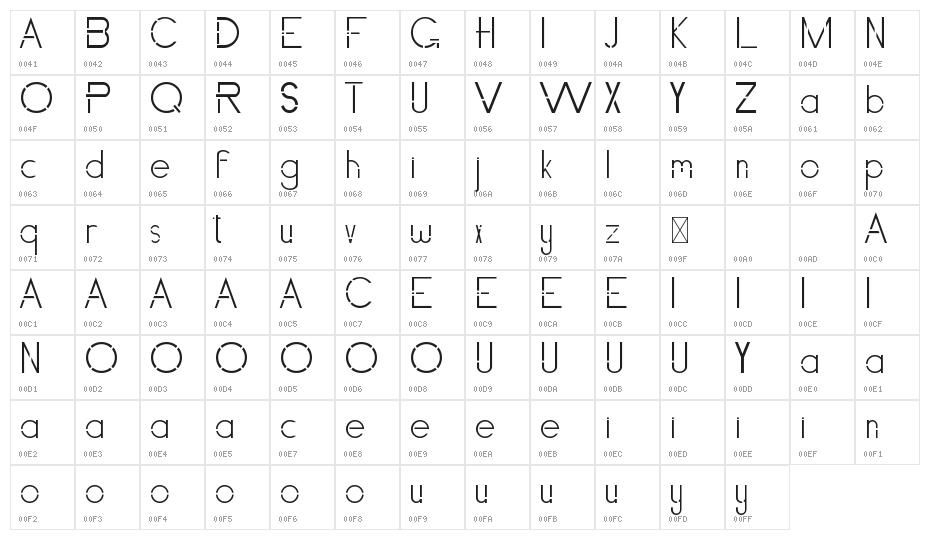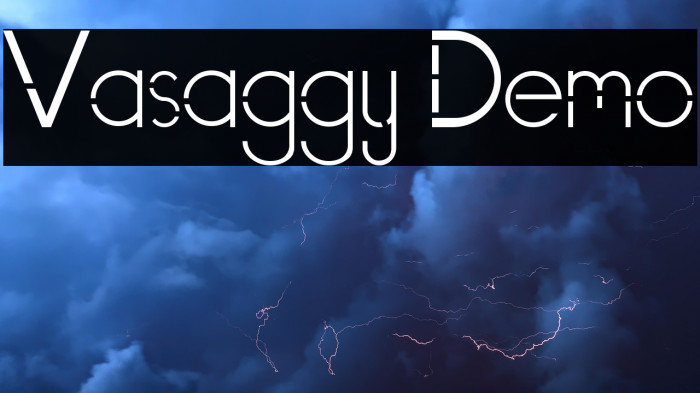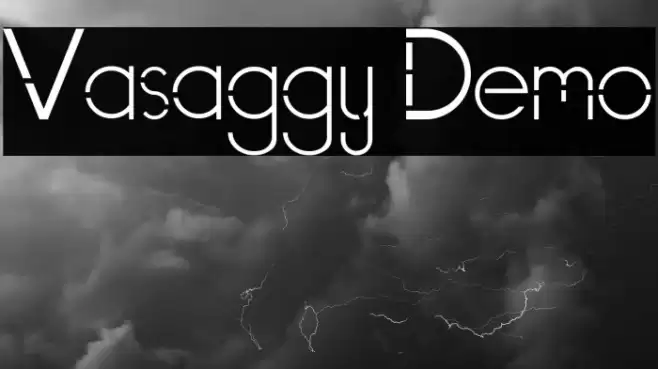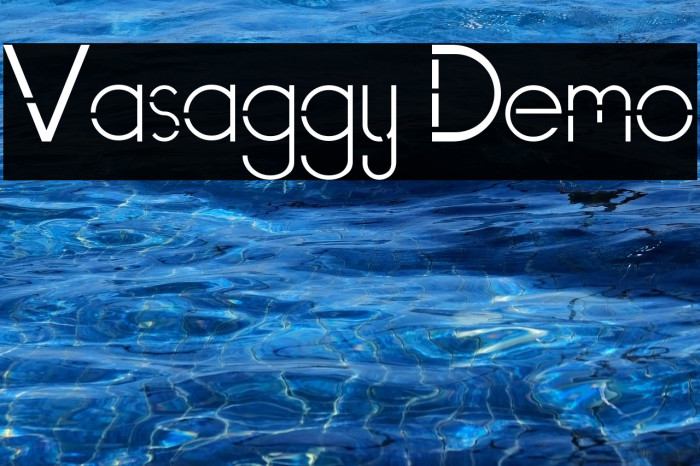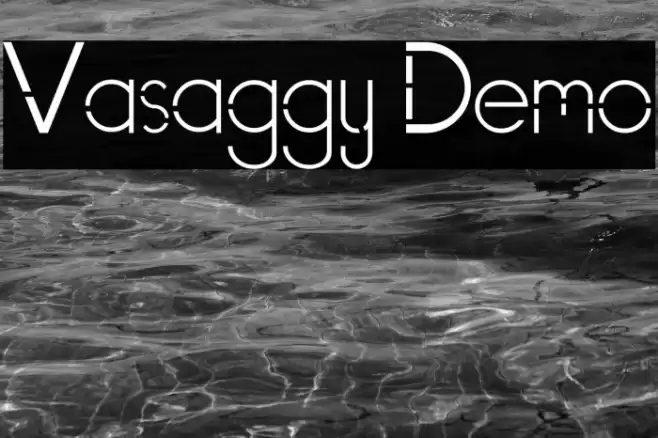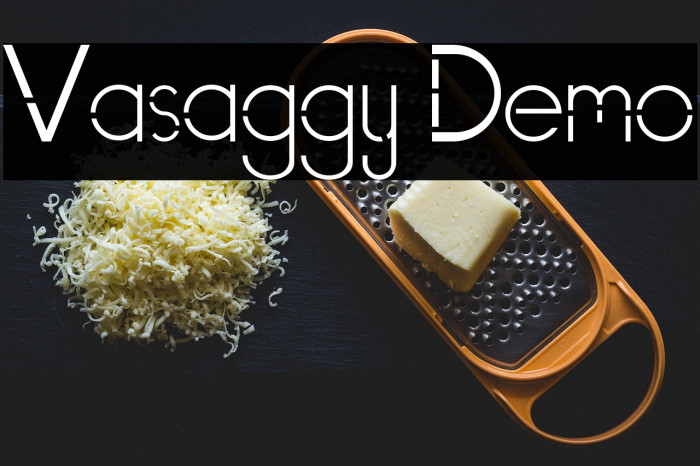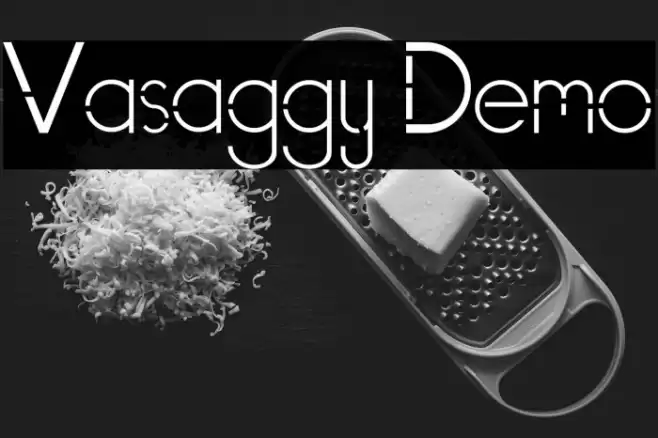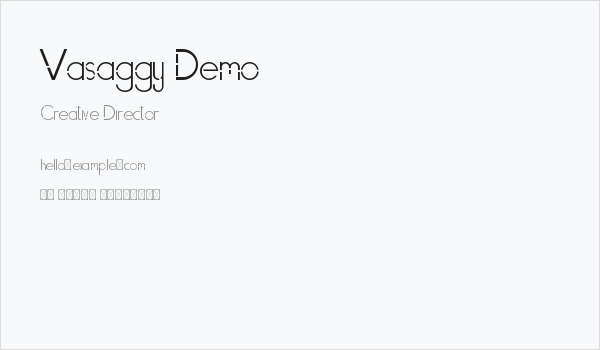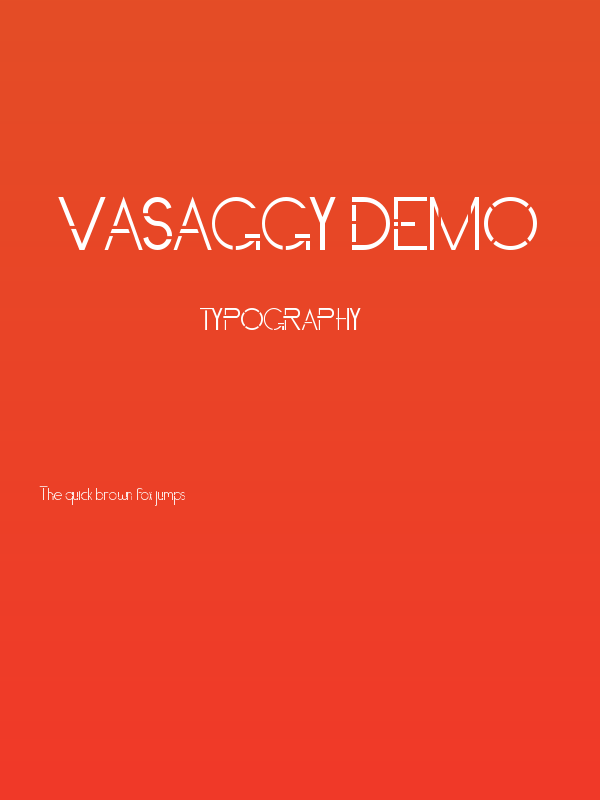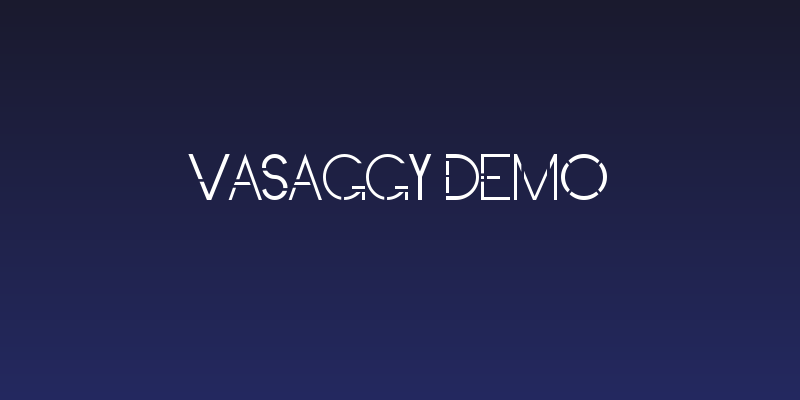
Vasaggy Demo Font
Vasaggy Demo Description
This font features a modern and geometric design with clean lines and a minimalist aesthetic. The characters are composed of a combination of straight lines and curves, creating a unique and futuristic appearance. The uppercase and lowercase letters maintain a consistent style, with a focus on symmetry and balance. The numerals and special characters are designed to complement the overall look, making it suitable for a variety of design applications. The font's distinctive style makes it ideal for projects that require a contemporary and innovative touch.
| Use Case | Headlines, Logos, Digital Media |
| Proposed Projects | Ideal for branding, advertising, digital media, and modern web design projects. |